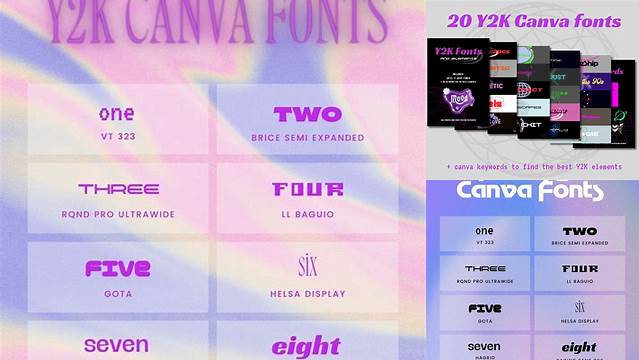
Y2K Fonts On Canva: Get The Retro Look!
Hey guys! Want to dive into the awesome world of Y2K aesthetics? You're in the right place! We're going to explore how you can rock that iconic style using Canva, focusing specifically on the fonts that scream early 2000s. Get ready to make your designs pop with that nostalgic flair! So, buckle up, and let's get started on this rad journey back in time!
1. Understanding Y2K Font Aesthetics
The Y2K aesthetic, guys, is all about embracing the technology and futurism of the late 90s and early 2000s. When we talk about Y2K fonts, we're talking about fonts that have a very specific vibe. Think bubbly, futuristic, and sometimes a little bit chaotic. These fonts often incorporate elements like rounded edges, bold strokes, and a slightly digital or pixelated feel. Think about those old computer interfaces, early internet graphics, and even the fonts used in pop music albums and music videos from that era. They were all about making a statement, being playful, and reflecting the excitement about the new millennium. Recognizing these characteristics is the first step in effectively incorporating Y2K fonts into your designs, helping you nail that nostalgic yet forward-thinking look. The use of bold and italic typefaces was also a hallmark of the era, further emphasizing the dynamic and expressive nature of Y2K design. Choosing the right Y2K fonts means understanding the cultural context and visual language of the time, ensuring that your designs resonate authentically with the intended aesthetic.
2. Best Y2K Fonts Available on Canva
Canva is a treasure trove when it comes to Y2K fonts, you know? You can find some seriously cool options that perfectly capture the essence of the early 2000s. Some standout choices include fonts with a rounded, bubble-letter style, perfect for logos or headings. Then there are the futuristic, almost sci-fi-inspired fonts that give off that sleek, techy vibe. And don't forget the chunky, graffiti-style fonts that add a touch of urban cool. Seriously, Canva's library is packed with fonts that can help you create anything from a nostalgic social media post to a full-blown Y2K-themed presentation. One of the best things about using Canva is how easy it is to experiment with different fonts and see how they look in your design. You can mix and match, play with sizes and colors, and really get creative with your typography. So, if you're looking to nail that Y2K look, Canva's font selection is a great place to start. Keep an eye out for those bold, playful, and slightly edgy fonts that were so characteristic of the era, and you'll be well on your way to creating some seriously awesome designs!
3. How to Search for Y2K Fonts in Canva
Okay, so finding those perfect Y2K fonts in Canva is actually pretty simple, guys. First things first, you'll want to head to Canva's font library within your design project. Once you're there, you've got a couple of options. You can start by using keywords in the search bar, like "retro," "futuristic," "bubble," or even "90s." These terms will help you filter through the massive font collection and narrow down your options to the styles that resonate with the Y2K aesthetic. Another cool trick is to browse through font categories like "Display Fonts" or "Handwritten Fonts,β as these often contain some hidden gems that fit the bill. Also, don't be afraid to scroll through the recommendations Canva provides β their algorithm is pretty smart and might suggest some Y2K-inspired fonts based on your previous choices. Remember, the key is to experiment and see what catches your eye! The bold and expressive nature of Y2K typography means you're looking for fonts that stand out and make a statement. So, have fun with the search, and you'll definitely find some awesome fonts to bring your Y2K designs to life!
4. Combining Y2K Fonts for Maximum Impact
Alright, let's talk about making those Y2K fonts really pop, guys! It's not just about picking one cool font; it's about combining them in a way that creates a killer visual impact. Think of it like mixing different flavors β you want them to complement each other, not clash. A common technique is to pair a bold, attention-grabbing font for your headings with a simpler, more readable font for the body text. This creates a hierarchy and ensures your message is clear while still keeping that Y2K vibe strong. For example, you could use a chunky, bubble-style font for your title and then pair it with a clean, slightly futuristic sans-serif font for the main text. Another cool trick is to play with contrast. Try using fonts with drastically different weights (like a super bold font with a very light one) or different styles (maybe a handwritten font paired with a geometric one). This adds visual interest and keeps things dynamic. Just remember, the goal is to create a balance β you want your font combinations to be eye-catching but not overwhelming. Experiment, have fun, and don't be afraid to break the rules a little. After all, the Y2K aesthetic is all about being bold and expressive!
5. Using Color Palettes to Complement Y2K Fonts
Okay, so you've nailed the Y2K fonts, but the job's not quite done, guys! Color palettes are seriously crucial for pulling off that authentic early 2000s look. Think about the colors that defined the era: vibrant neons, shimmering metallics, and playful pastels. We're talking bright pinks, electric blues, lime greens, and of course, that iconic silver sheen. These colors were everywhere, from fashion to tech gadgets, and they played a huge role in creating the Y2K aesthetic. When you're choosing colors to go with your Y2K fonts, you want to create a palette that feels both nostalgic and futuristic. Try pairing a bold, saturated color with a metallic accent for that classic early 2000s vibe. Or, go for a mix of pastels for a softer, more playful look. Don't be afraid to experiment with unexpected combinations, either β the Y2K era was all about pushing boundaries and embracing the unconventional. Just remember to keep the overall balance in mind. You want your colors to enhance your fonts, not compete with them. So, have fun exploring different color palettes, and get ready to add that perfect finishing touch to your Y2K designs!
6. Y2K Design Elements to Pair with Fonts
To really nail that Y2K look, itβs not just about the fonts, guys. You gotta think about the whole package! The design elements you pair with your Y2K fonts are just as important in creating that authentic early 2000s vibe. Think about the graphic styles that were popular back then: glossy textures, 3D effects, and those iconic digital patterns like pixel art and geometric shapes. These were all hallmarks of the era, and incorporating them into your designs will instantly transport your audience back in time. Another key element of Y2K design is the use of playful, whimsical graphics. Think bubbly shapes, cute characters, and a generally optimistic and energetic feel. These elements add a touch of fun and personality to your designs, which is totally in line with the Y2K aesthetic. And let's not forget about the importance of layering and transparency! Experiment with overlapping different elements and using semi-transparent textures to create depth and visual interest. This technique was super popular in early 2000s web design and print media. So, when you're working on your Y2K designs, don't just focus on the typography. Think about the whole visual experience, and use these design elements to create a cohesive and authentically Y2K look!
7. Creating Logos with Y2K Fonts on Canva
Okay, so you want to create a logo that screams Y2K, huh? Awesome! Using Y2K fonts in your logo design is a fantastic way to capture that nostalgic, futuristic vibe. The key here, guys, is to choose a font that is not only visually striking but also reflects the personality of your brand. Think about the message you want to convey and how the font can help you communicate that. For a logo, you'll generally want to go for a font that is bold and memorable. Bubble letters, chunky fonts, and those with a slightly distorted or digital look are all great options for a Y2K logo. But remember, legibility is still important! You want people to be able to easily read your brand name, even if the font is super stylized. Canva has a ton of Y2K-inspired fonts that are perfect for logos. Once you've chosen your font, think about how you can customize it to make it even more unique. Play with colors, add outlines or shadows, or even incorporate some Y2K-style graphic elements into the design. The goal is to create a logo that is both eye-catching and instantly recognizable. So, have fun experimenting and let your creativity flow!
8. Social Media Graphics in Y2K Style
Let's talk social media, guys! If you're aiming for that Y2K aesthetic on your social platforms, the right fonts are absolutely essential. Y2K fonts can instantly make your posts, stories, and profile graphics pop with that nostalgic early 2000s vibe. For social media, you want fonts that are attention-grabbing and easy to read on small screens. Think bold, playful fonts for headlines and captions, and maybe a slightly simpler font for longer text blocks. Canva is your best friend here, with a huge library of Y2K-inspired fonts to choose from. But it's not just about the fonts themselves. Think about how you use them in your graphics. Play with layering, colors, and other Y2K design elements to create a cohesive look. Consider adding some bubbly shapes, pixelated textures, or maybe even a glitter effect to really amp up that early 2000s feel. And don't forget about animation! Animated text and graphics were huge in the Y2K era, so adding some movement to your social media content can really help you capture that authentic vibe. Whether you're creating Instagram stories, Facebook posts, or even TikTok videos, the right Y2K fonts and design elements can make your social media presence stand out from the crowd!
9. Y2K Inspired Presentations on Canva
Wanna make your presentations totally rad, guys? Then let's talk Y2K fonts on Canva! Seriously, a killer presentation is all about visual impact, and the right typography can make a huge difference. For a Y2K-inspired presentation, you want fonts that scream early 2000s futurism and fun. Think bold, bubble letters, slightly distorted fonts, and maybe even some with a hint of that digital, pixelated look. Canva has got your back with tons of Y2K font options that are perfect for slide titles, headings, and even body text (if you choose wisely!). But remember, a presentation isn't just about looking cool β it's about conveying information clearly. So, while you want to embrace that Y2K aesthetic, you also need to make sure your slides are easy to read. Try pairing a super bold, eye-catching font for your headings with a cleaner, more legible font for the main content. This will help you strike that perfect balance between style and clarity. And don't forget about colors and graphics! Use Y2K-inspired color palettes and design elements to really tie the whole presentation together. With the right Y2K fonts and a little creativity, you can create presentations that are both visually stunning and super effective.
23. Y2K Fonts for Educational Content
24. Y2K Fonts for Creative Writing
25. Y2K Fonts for Game Design
26. Y2K Fonts for Podcast Art
27. Y2K Fonts for Book Covers
28. Y2K Fonts for Photo Overlays
29. Y2K Fonts for Digital Planners
30. Y2K Fonts for Infographics